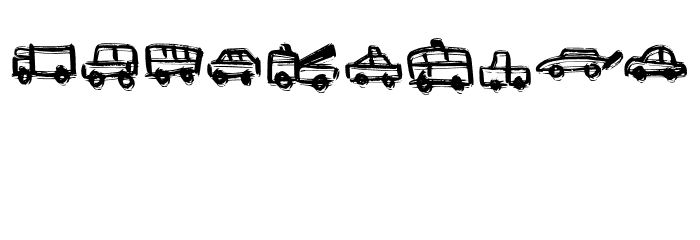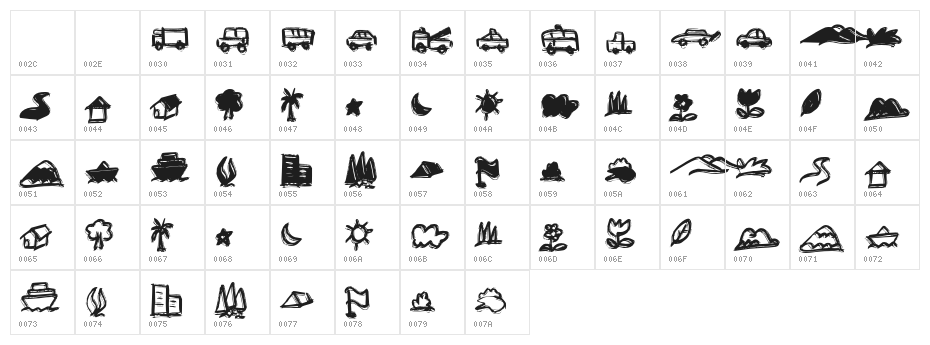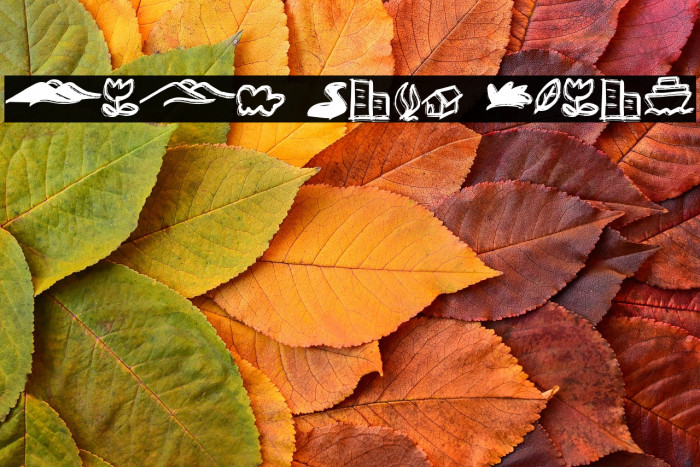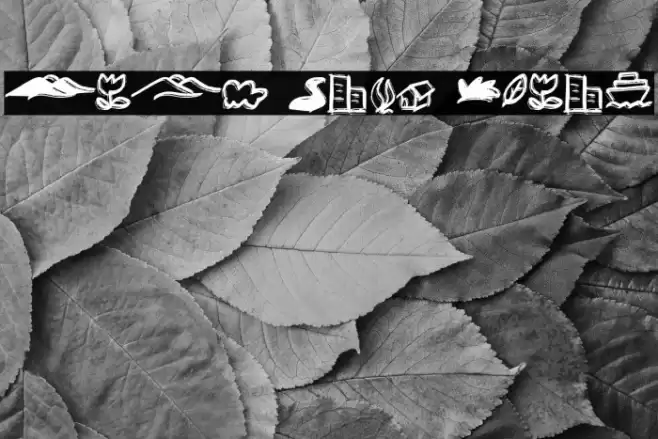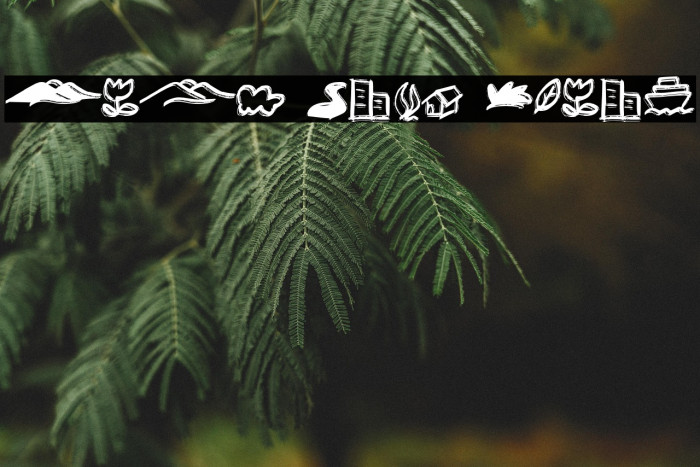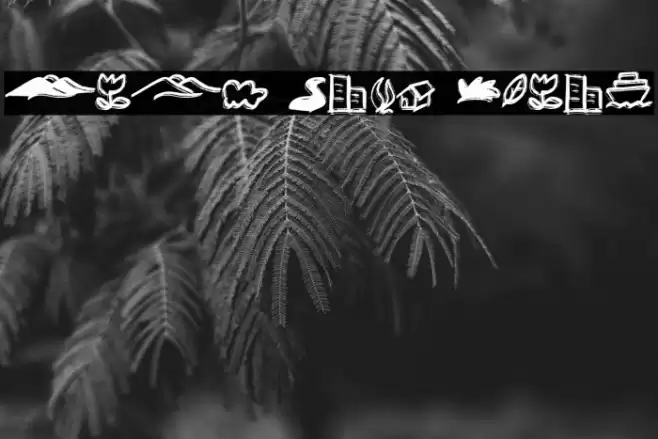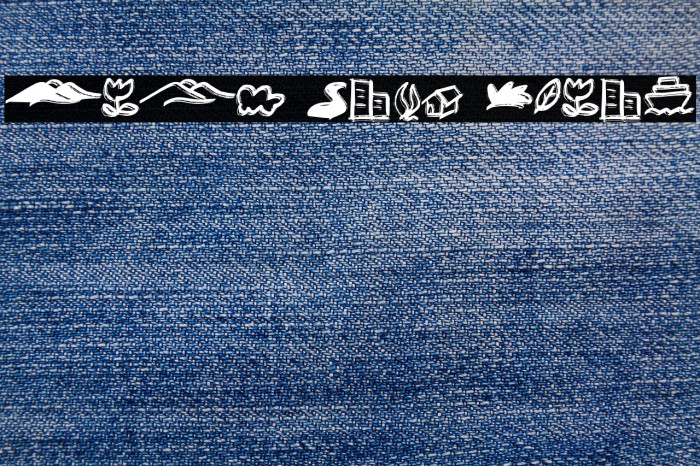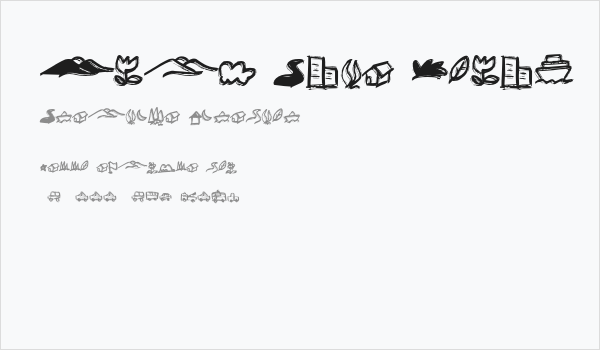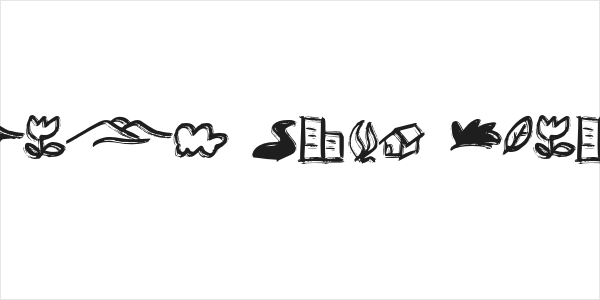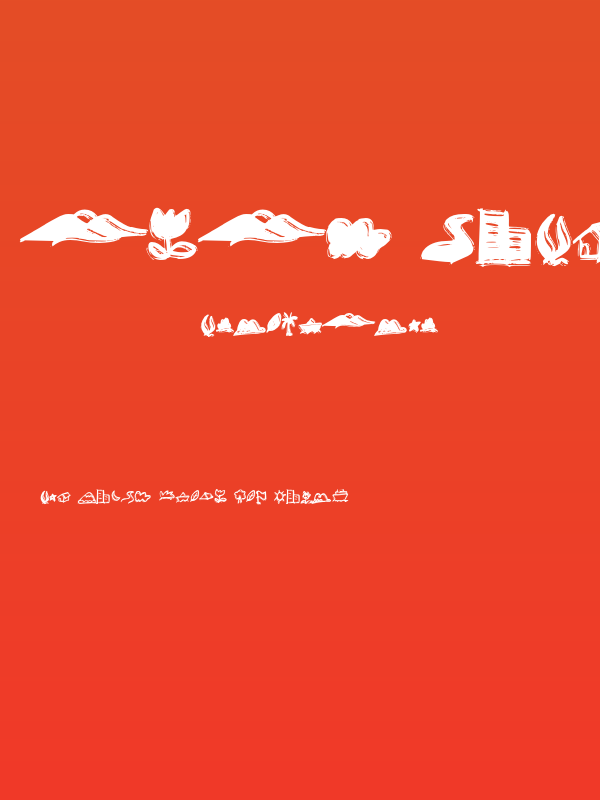
Anak Cute Bonus Font
Anak Cute Bonus Description
This is a whimsical and playful set of icons rather than a traditional font. Each character is represented by a unique doodle-style illustration, including elements like mountains, trees, houses, and various vehicles. The style is sketchy and informal, with a hand-drawn feel that adds a sense of fun and creativity. These icons are bold and visually engaging, making them suitable for projects that require a touch of personality and charm. The illustrations are consistent in their artistic approach, providing a cohesive look across the set.
| Use Case | Logos, Illustrations, Creative Projects |
| Proposed Projects | Ideal for children's books, educational materials, playful branding, or creative design projects. |